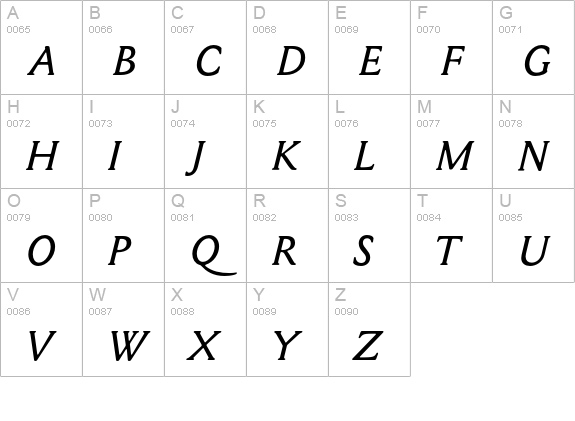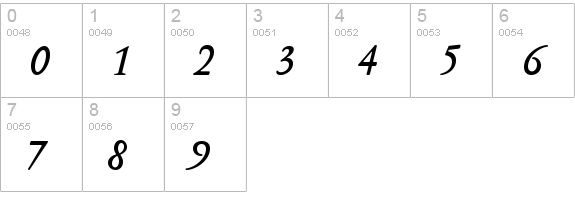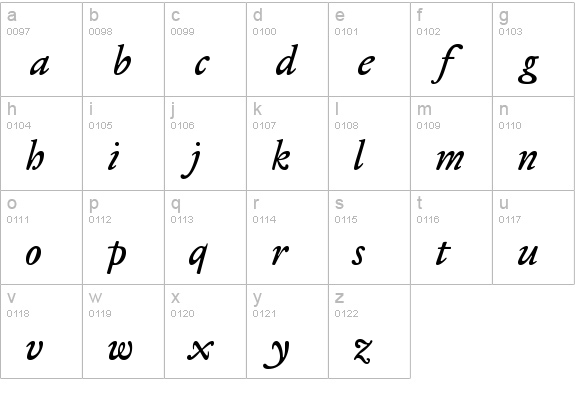
Mediaeval-Italic is a distinctive, italic variant in the Mediaeval typeface family \xE2\x80\x94 well suited to design and typography projects.
Mediaeval-Italic is a stunning and elegant font that captures the essence of the medieval era with its intricate details and timeless charm. This font exudes a sense of sophistication and history, making it perfect for projects that require a touch of old-world beauty. The graceful curves and unique flourishes of Mediaeval-Italic add a touch of class to any design, whether it be for invitations, posters, or branding materials. And the best part? Mediaeval-Italic is available for free download at FontsMarket.com. This means you can easily access this exquisite font and incorporate it into your projects without any cost. Whether you're a designer looking to add a touch of medieval flair to your work or someone who appreciates the beauty of historical fonts, Mediaeval-Italic is sure to make a statement. Download it today and let its timeless elegance elevate your designs to a whole new level.